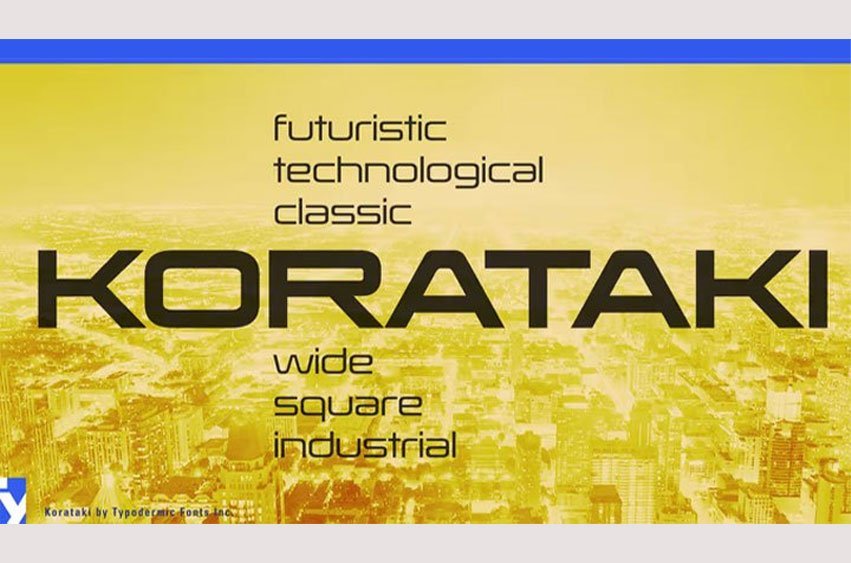
Korataki Font is a tribute to the 1975’s futuristic classic, China by M. Mitchell. It was one of the earliest typefaces that would now be classified as techno. Wide, square, industrial and super cool, China was rarely seen, but when it was it appeared to have come from a distant future. Korataki ran with that idea and took away some of the mid 1970’s aesthetic, replacing it with a contemporary techno style as well as a lowercase set. Korataki comes in 7 weights plus italics. Alternates are included for A, G, Q and 4.